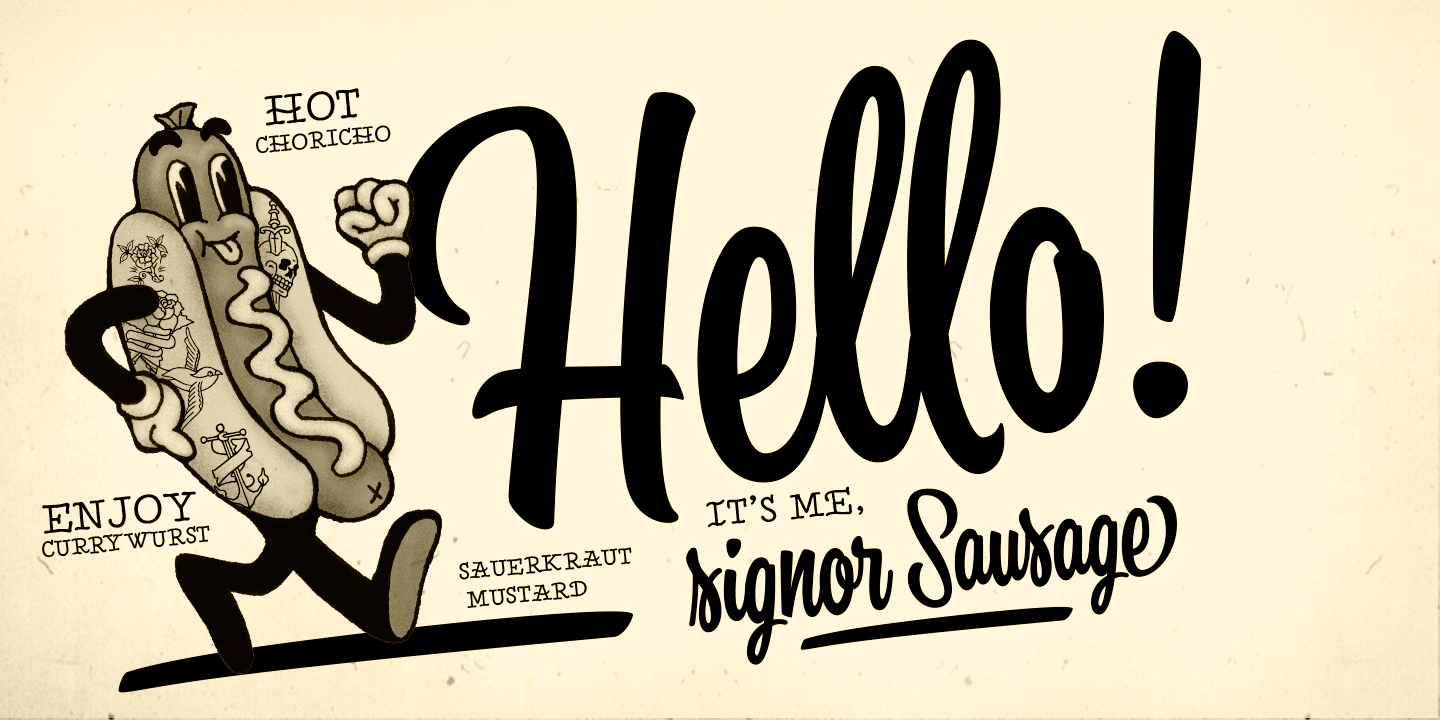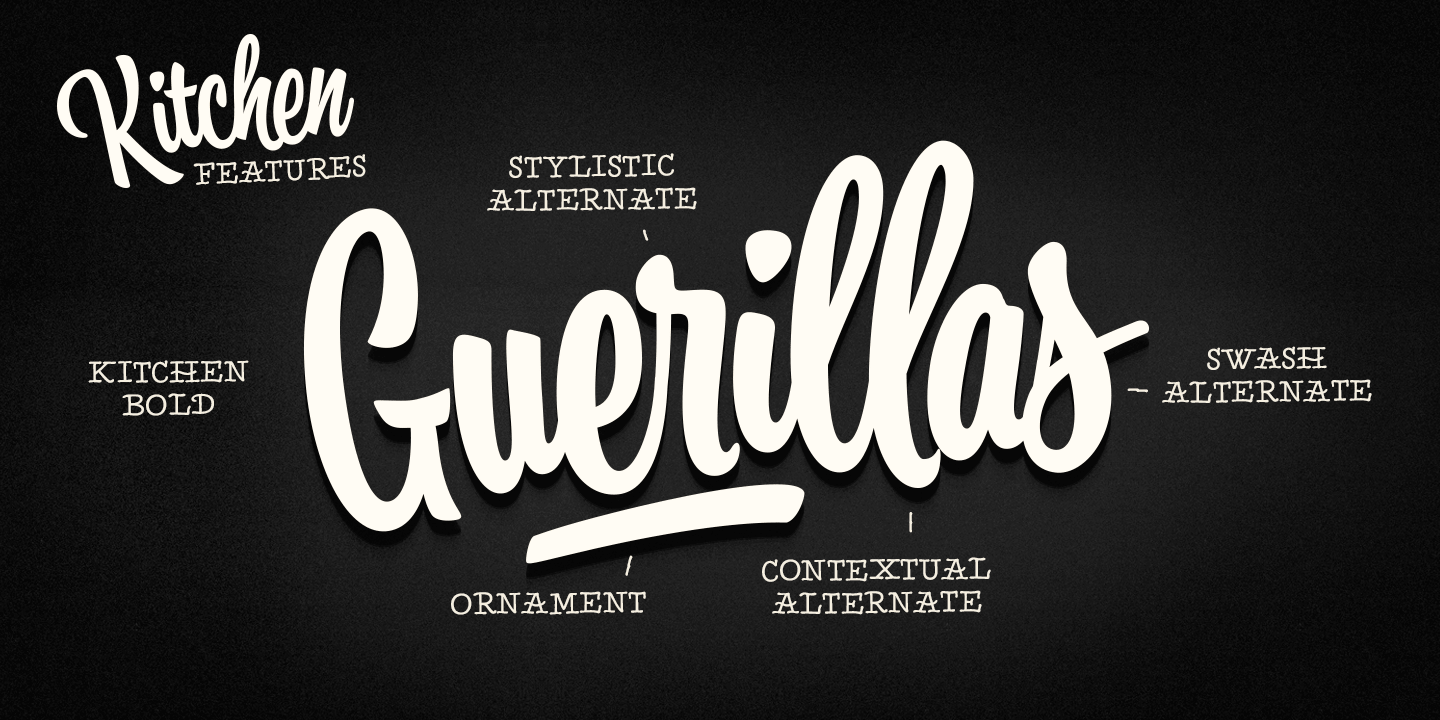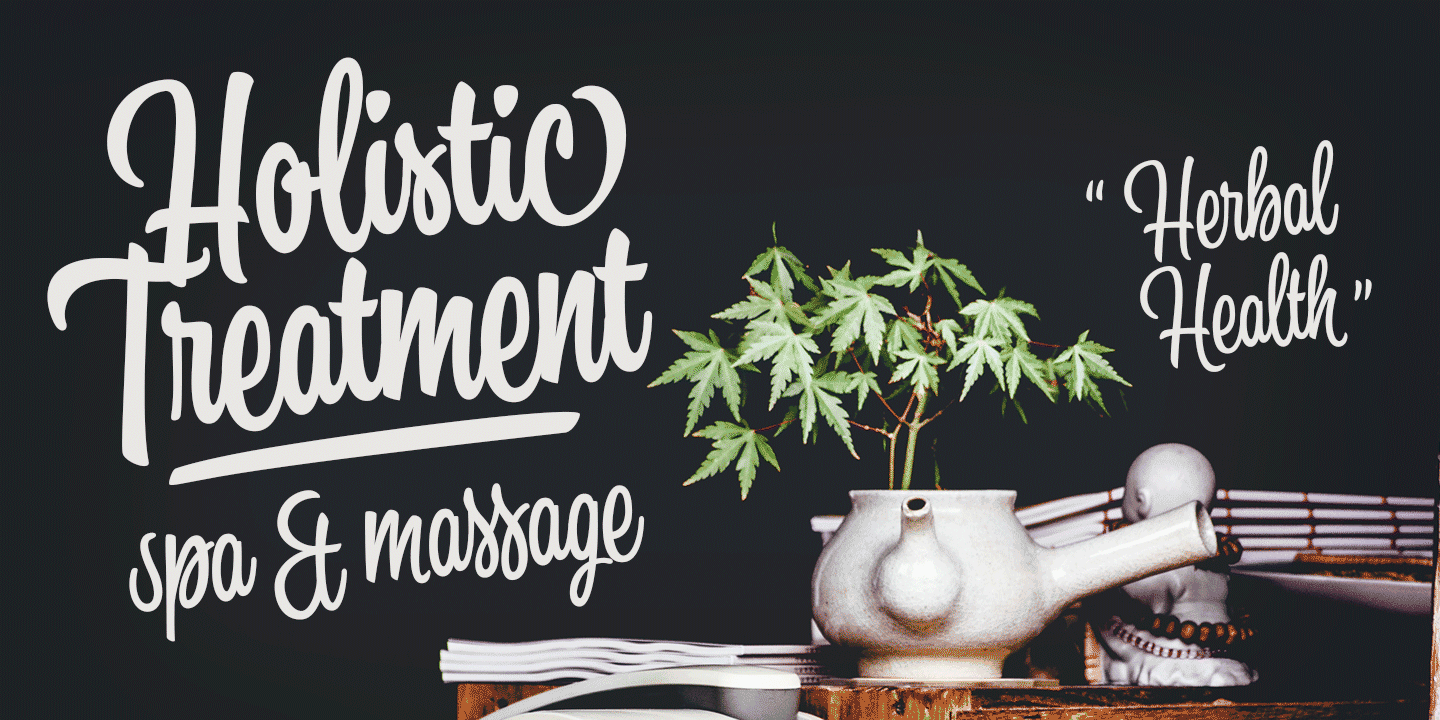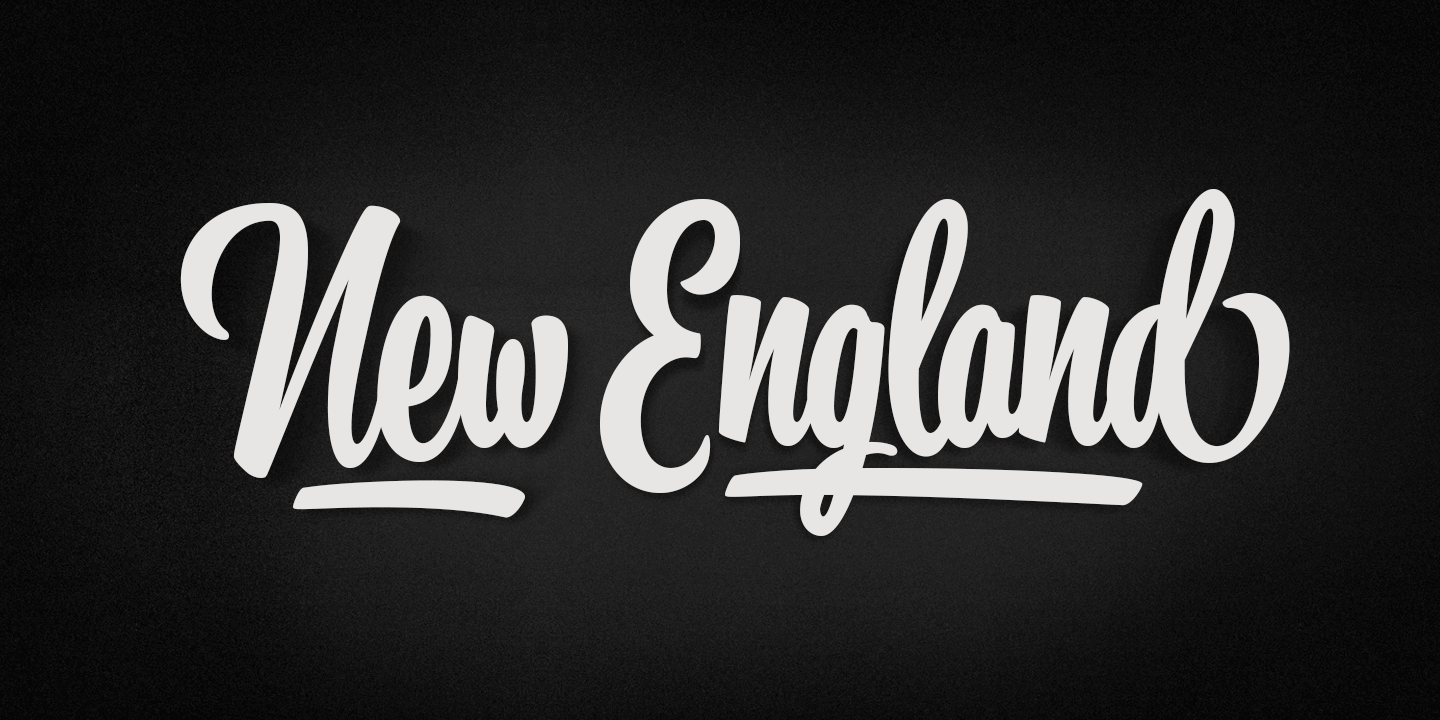
Kitchen
Kitchen is an expressive sign painting style brush script family with three weights. Equipped with contextual alternates and ligatures that add variety in the flow, along with stylistic alternates for all characters, and swash alternates for lowercase. From the Glyph Palette you'll also find 16 swooshes that can be used as underlines or swashes.
Kitchen is an outstanding display font that works great for any display use from branding to packaging to logotype.